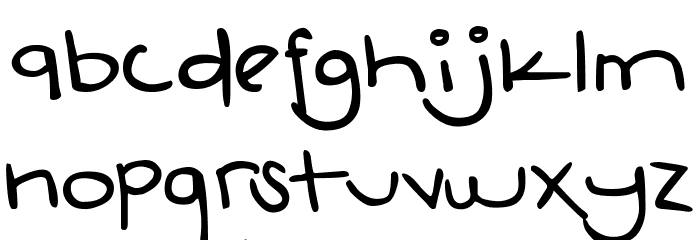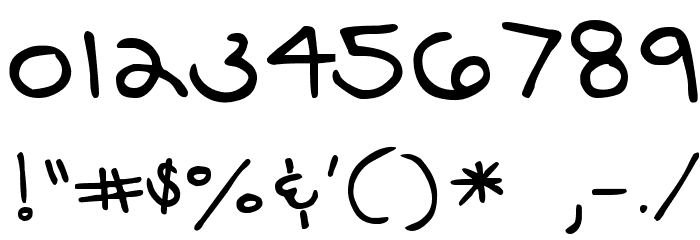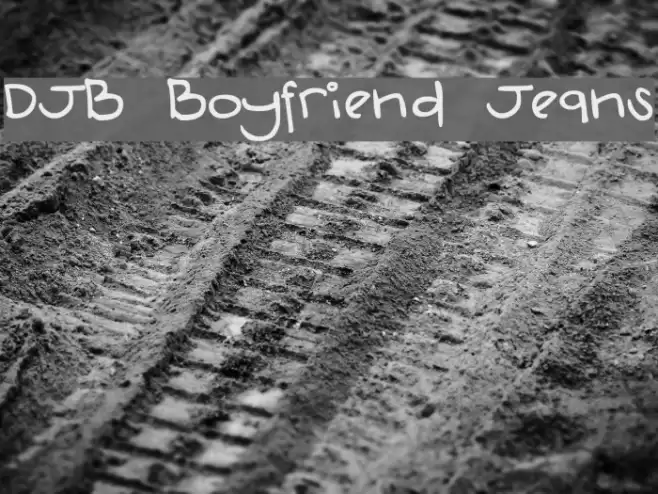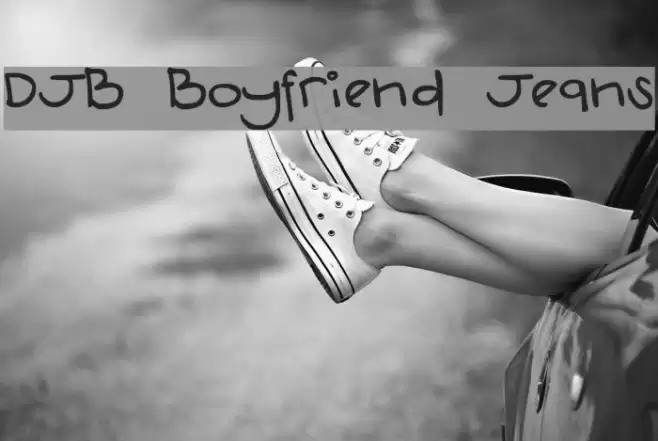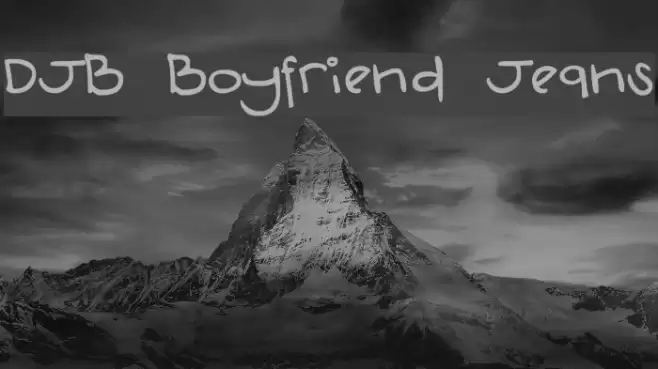
DJB Boyfriend Jeans Font
This playful and casual font features a handwritten style with a relaxed and informal appearance. The characters are slightly uneven, adding a personal touch that mimics natural handwriting. The strokes are smooth and rounded, giving it a friendly and approachable feel. The uppercase and lowercase letters maintain a consistent style, with a slight slant that enhances the handwritten effect. Numbers and special characters are included, matching the overall aesthetic. This font is ideal for projects that require a personal, informal touch, such as greeting cards, personal blogs, or creative projects.
- Proposed Projects: Greeting cards, personal blogs, creative projects, informal invitations.
- Overall Style: Casual, Playful
- Use Case: Creative projects, Informal text